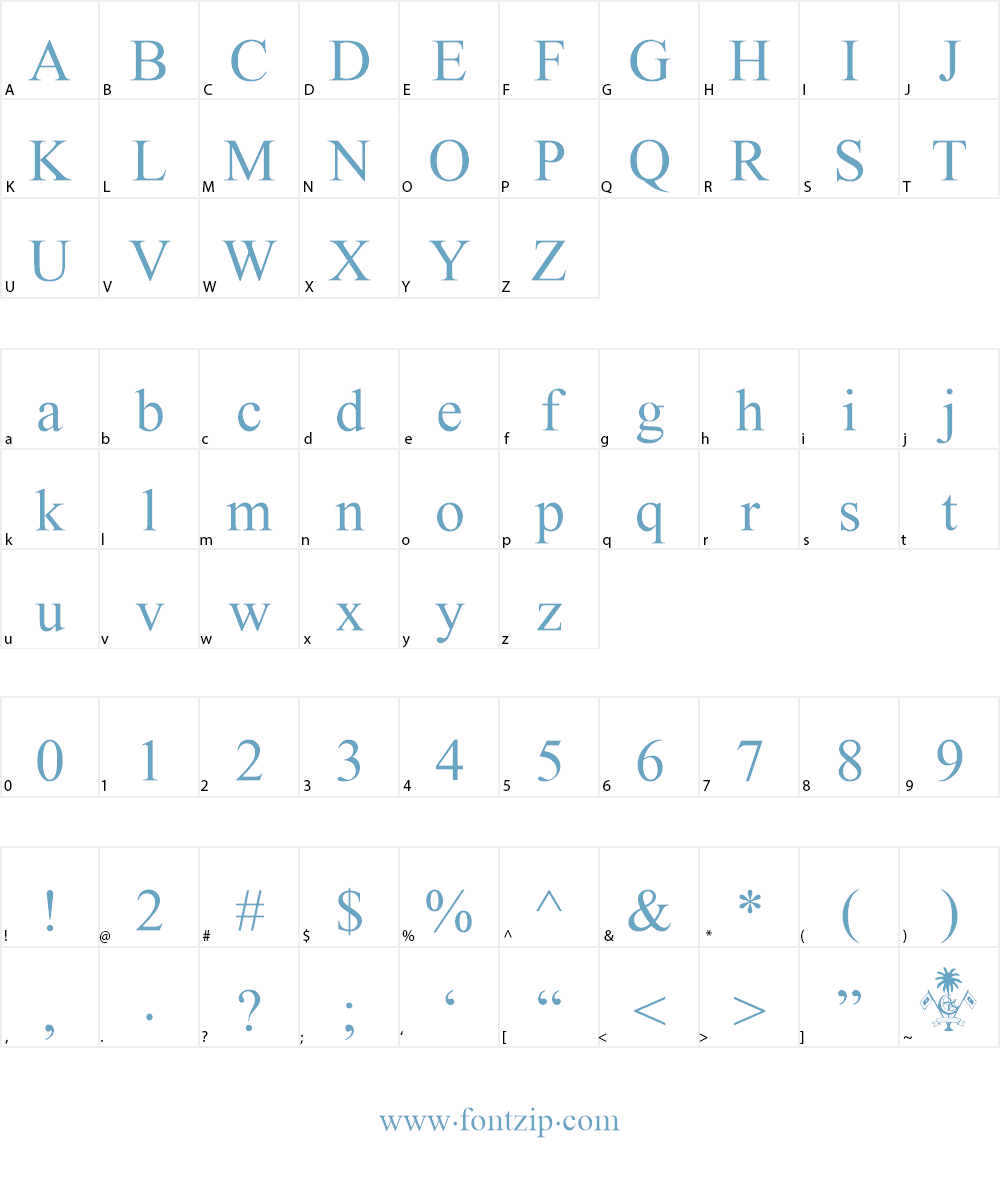
This font is 3 in 1 font, that can be used as both Faruma, bismillah and Galan..
By Pressing Shift key ~ (above Tab key) will give "Dhaulathuge Nishan" also pressing ` key will give u bismillah for your letters... this is modified file of "MV Boli".. Once you Download and Install replace with with MV Boli... You r DONE...